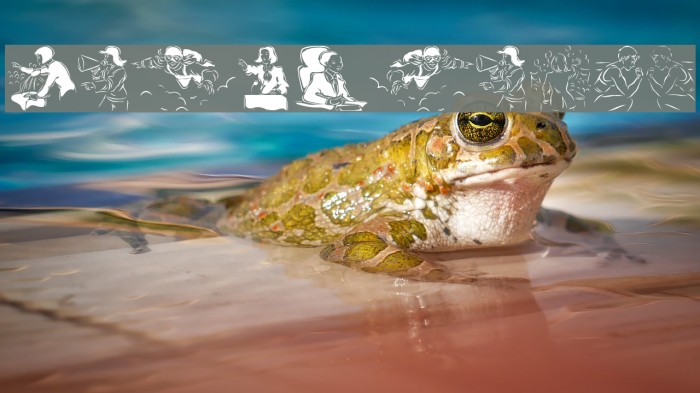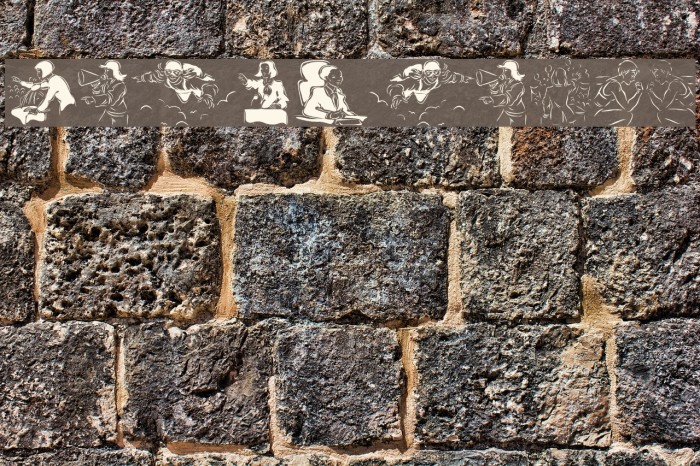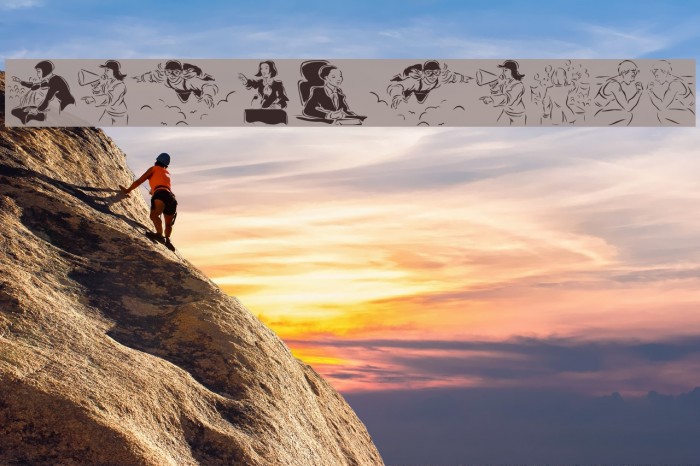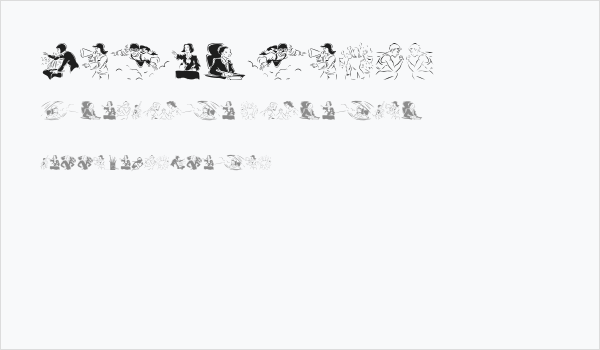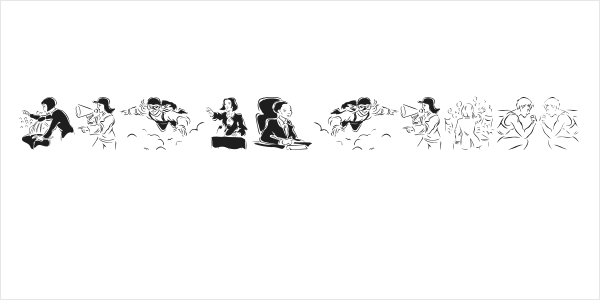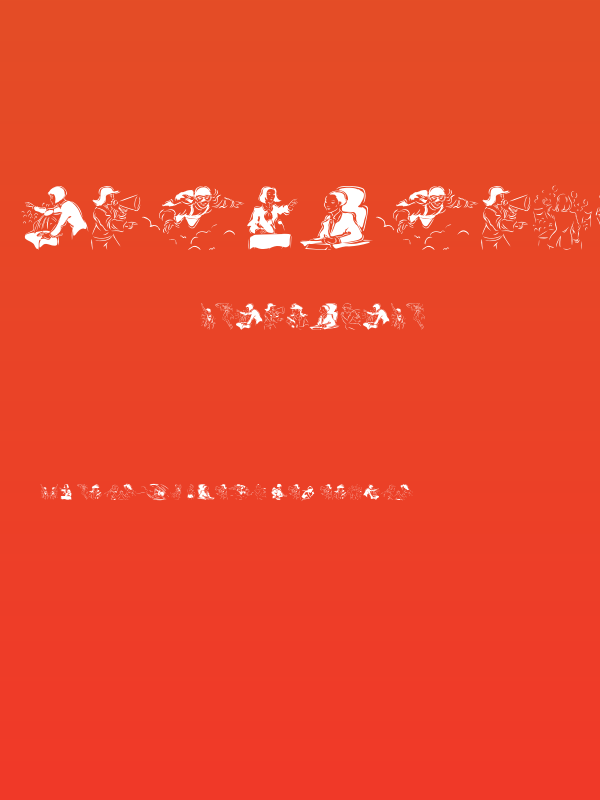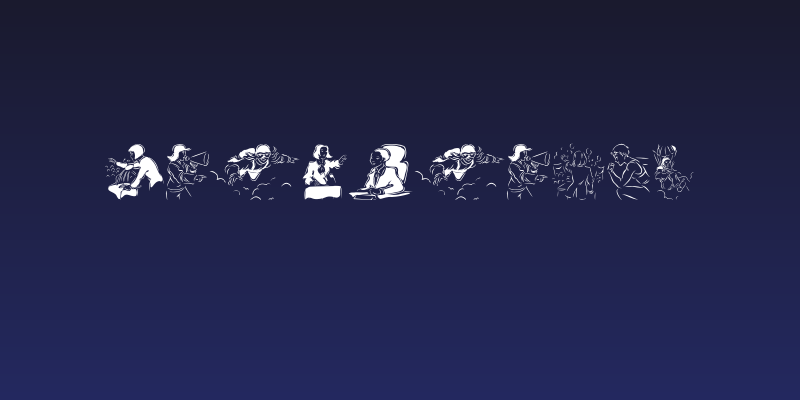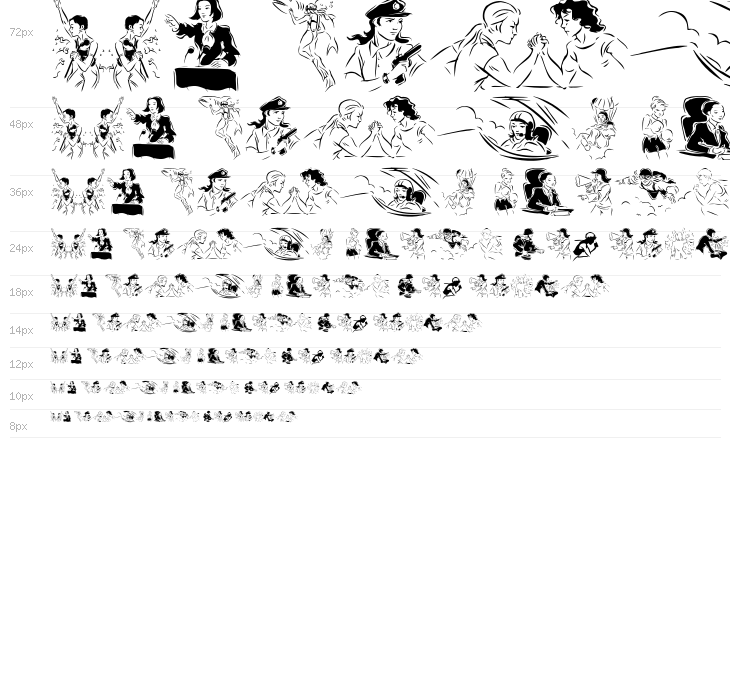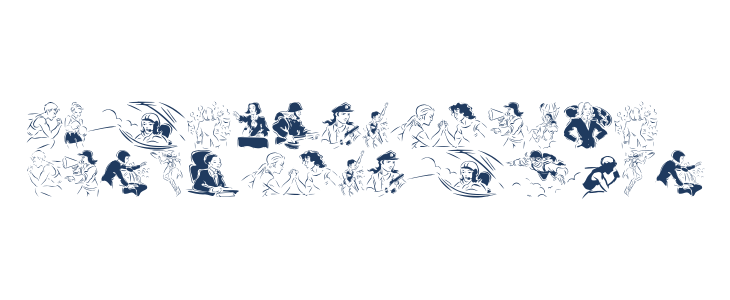
PowerWoman Font
PowerWoman Description
A decorative display font composed of illustrated superhero women in dynamic action poses, forming each character with expressive, comic-inspired line art. The glyphs are highly stylized, prioritizing visual storytelling over traditional letterforms.
| Overall Style | Decorative, Comic, Playful |
| Proposed Projects | Posters, comic book titles, event flyers, themed branding, children's products. |